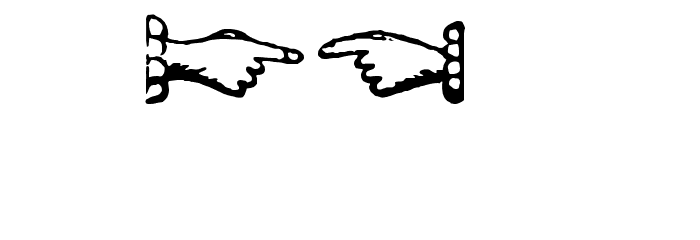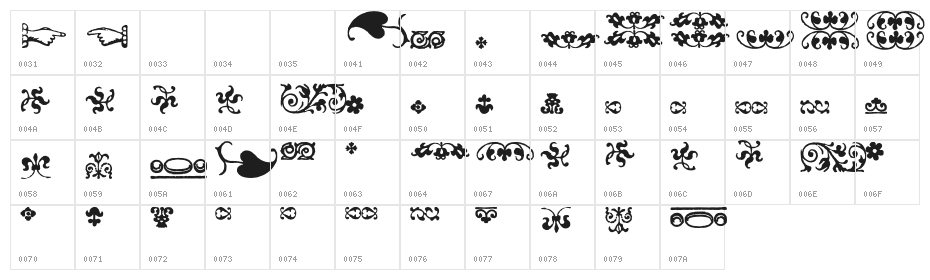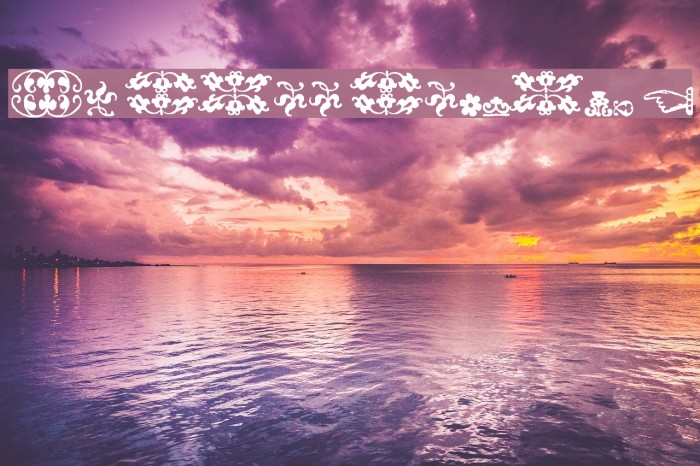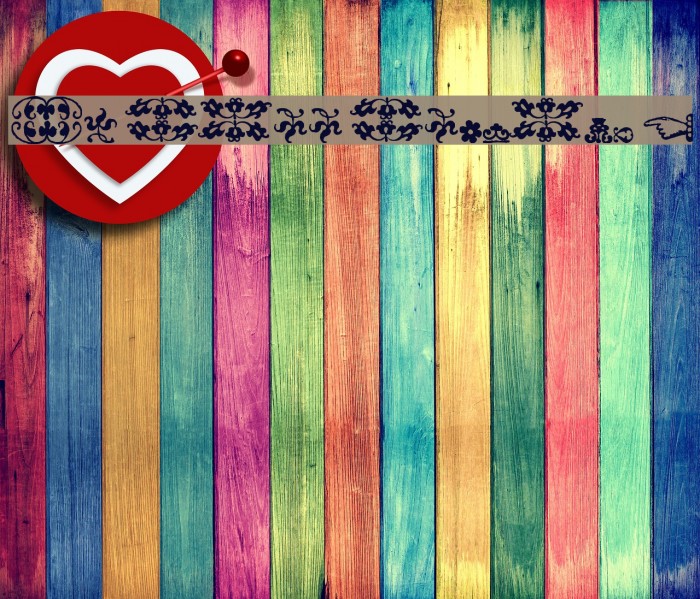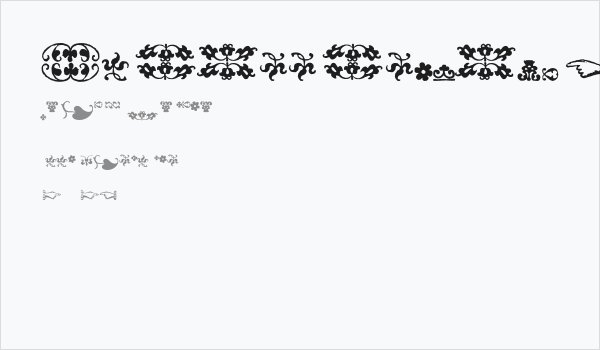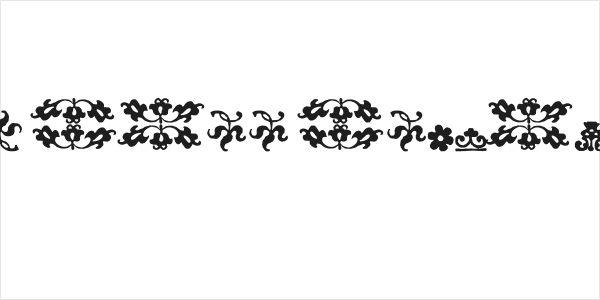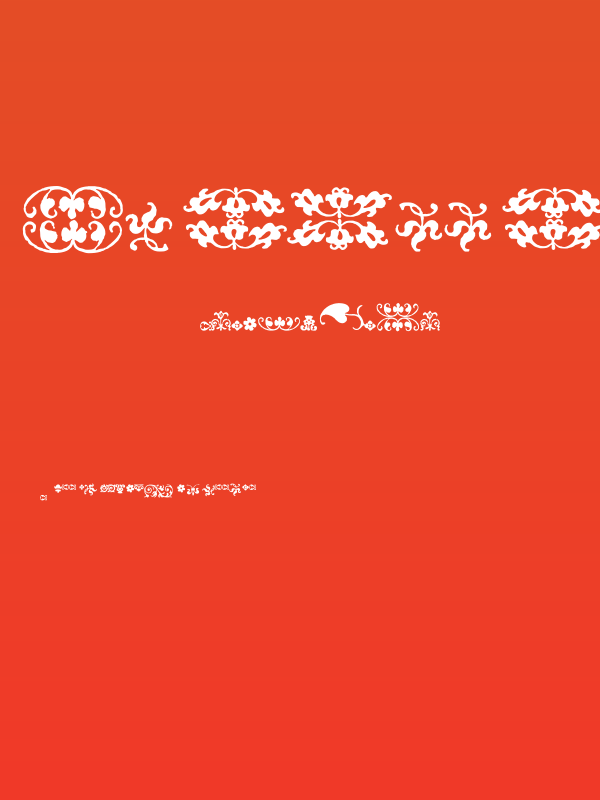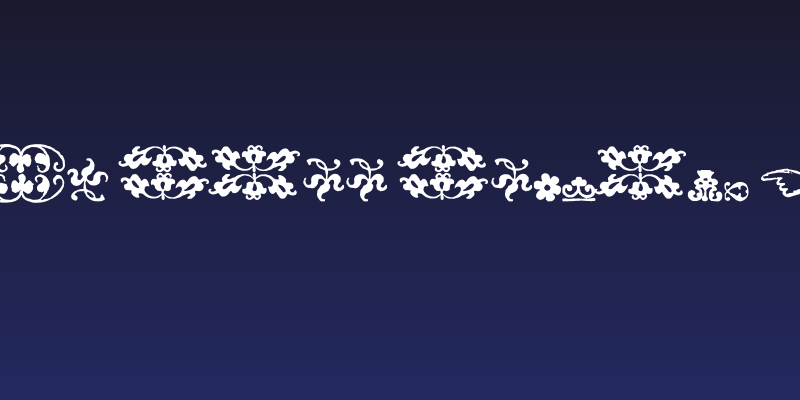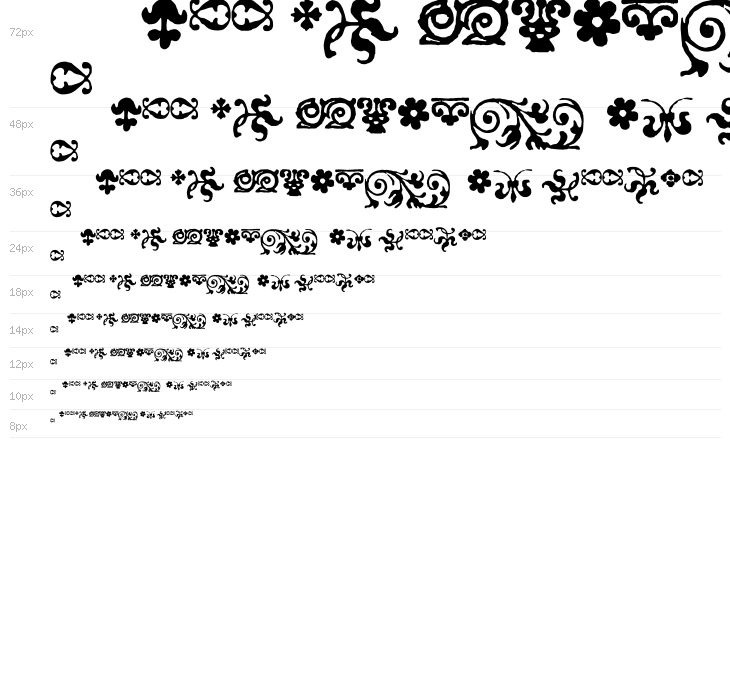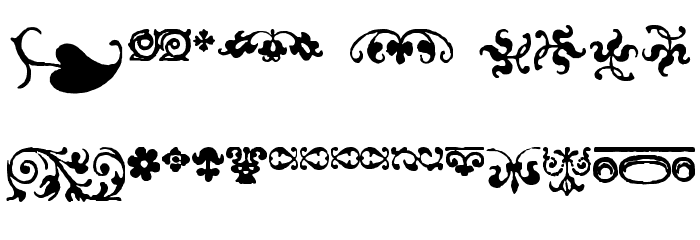
IM FELL FLOWERS 2 Font
IM FELL FLOWERS 2 Description
This collection of ornamental designs features intricate floral and decorative motifs, reminiscent of vintage and classical styles. The elements are highly detailed, showcasing a variety of symmetrical patterns and flourishes. These designs are ideal for adding an elegant touch to projects, with a focus on ornate embellishments. The motifs include swirling vines, floral accents, and stylized shapes that evoke a sense of historical artistry. The overall appearance is sophisticated and decorative, suitable for enhancing visual appeal in a variety of creative applications.
| Overall Style | Vintage, Decorative |
| Use Case | Decorative elements, Artistic embellishments |
| Proposed Projects | Ideal for invitations, certificates, decorative borders, and artistic embellishments. |